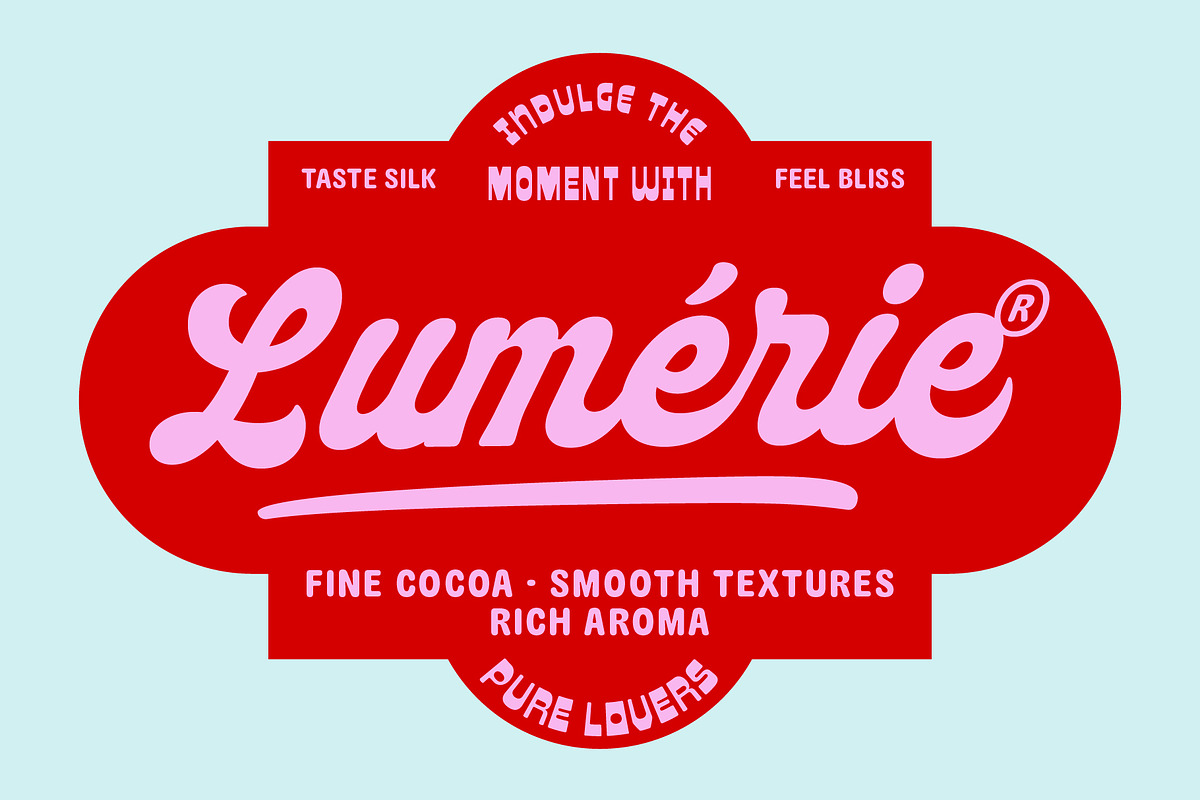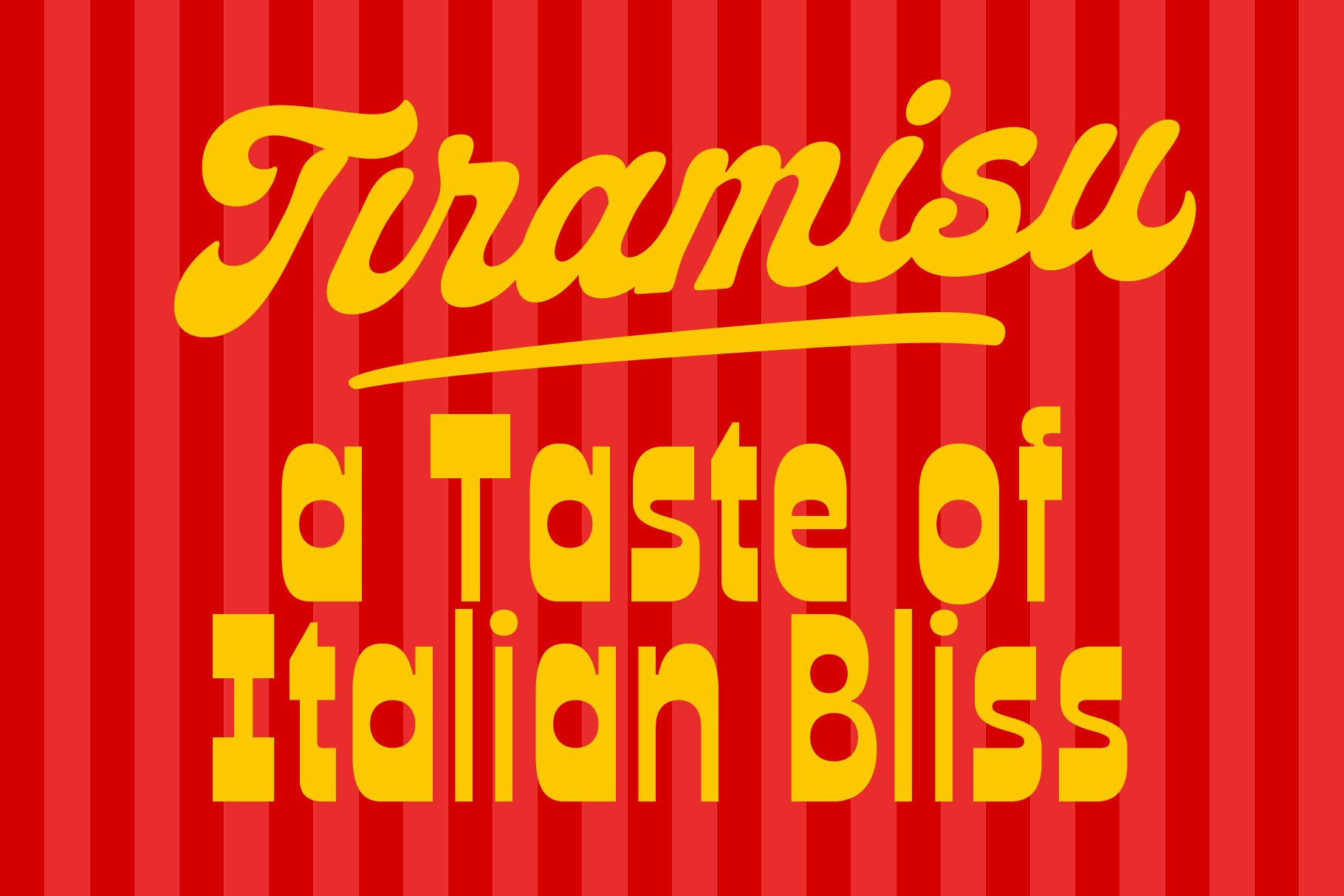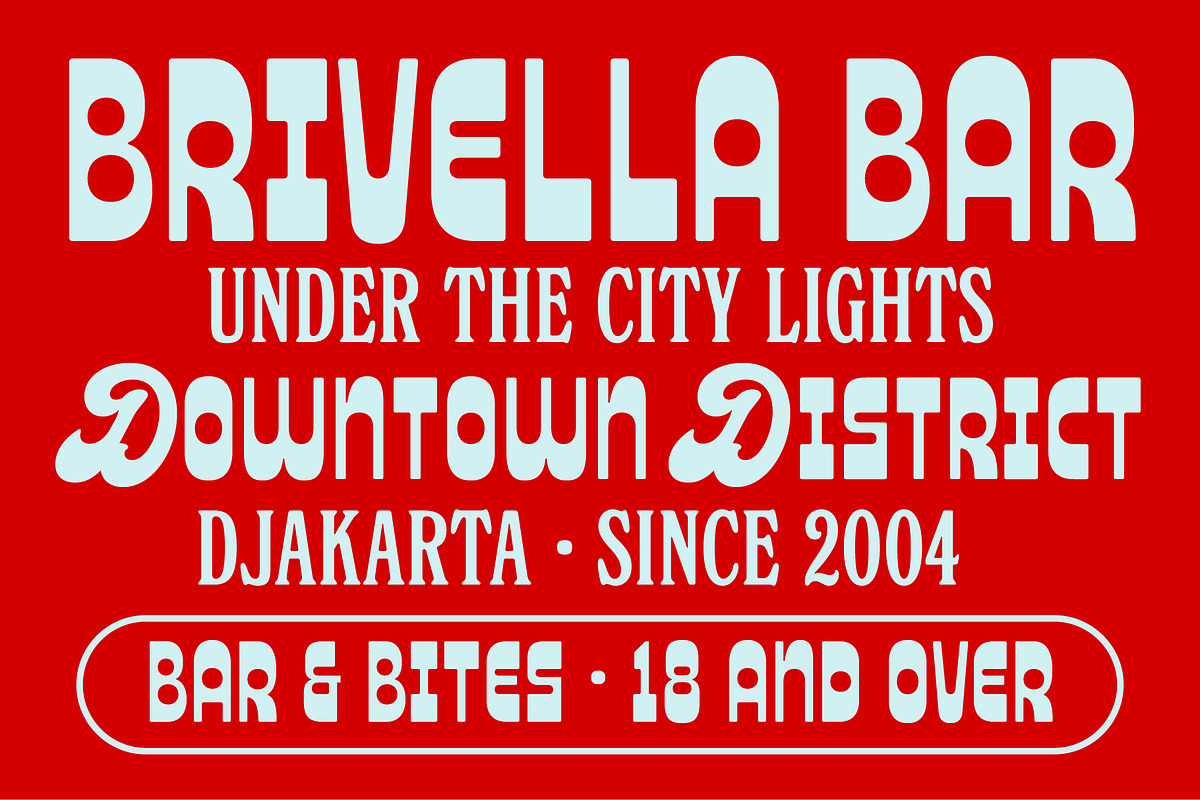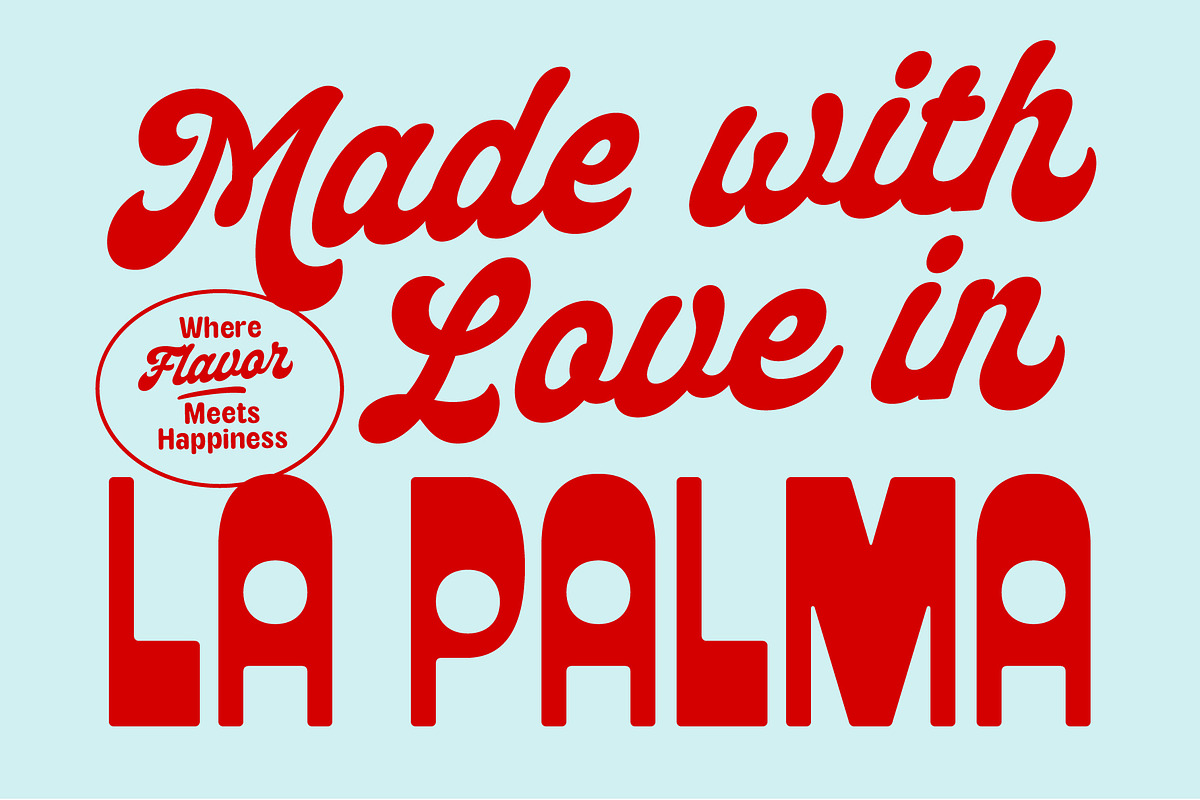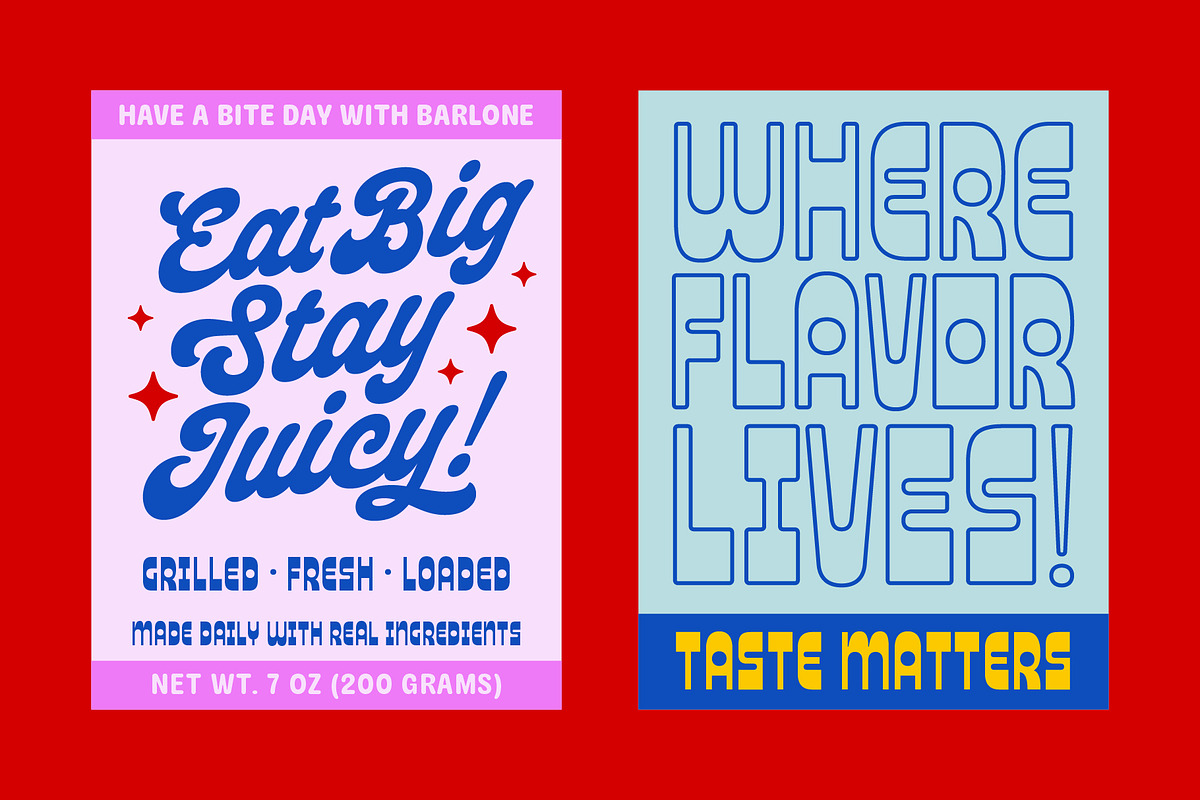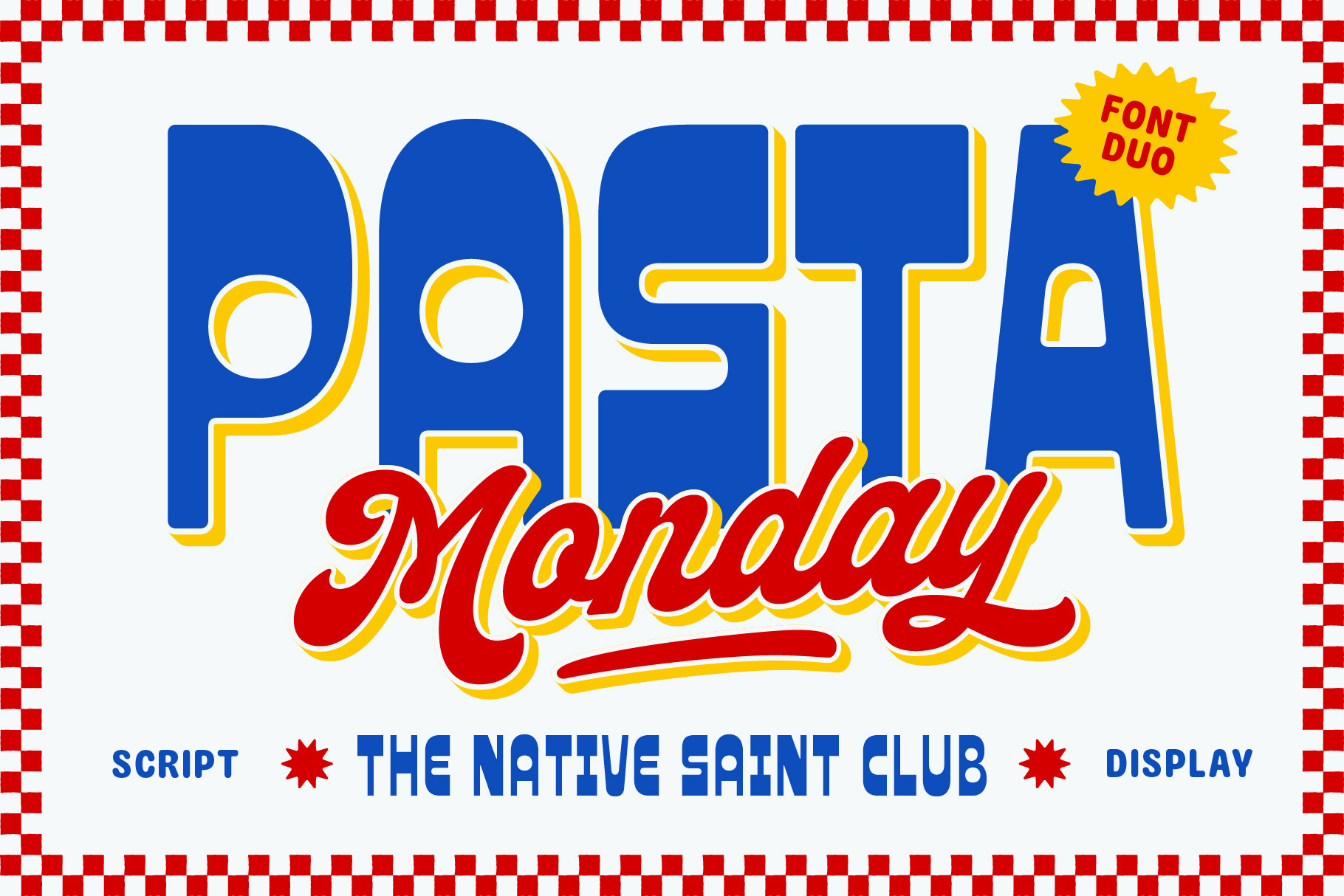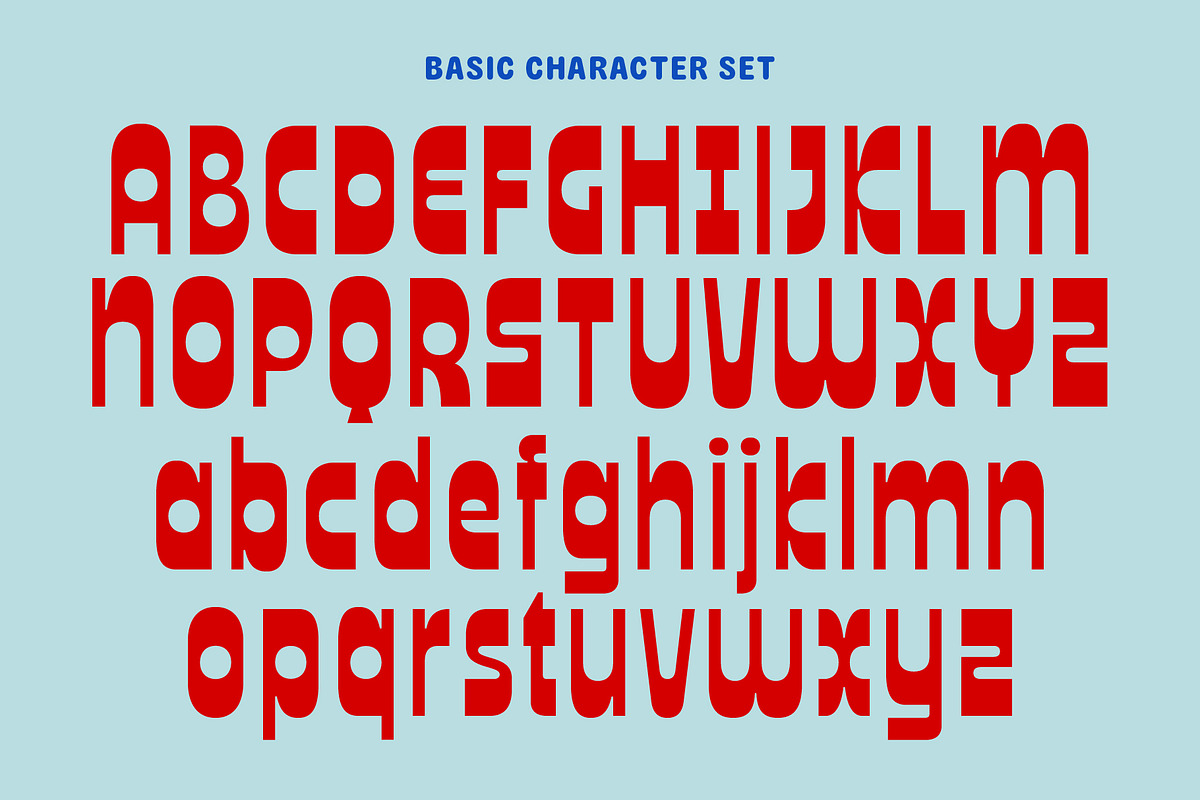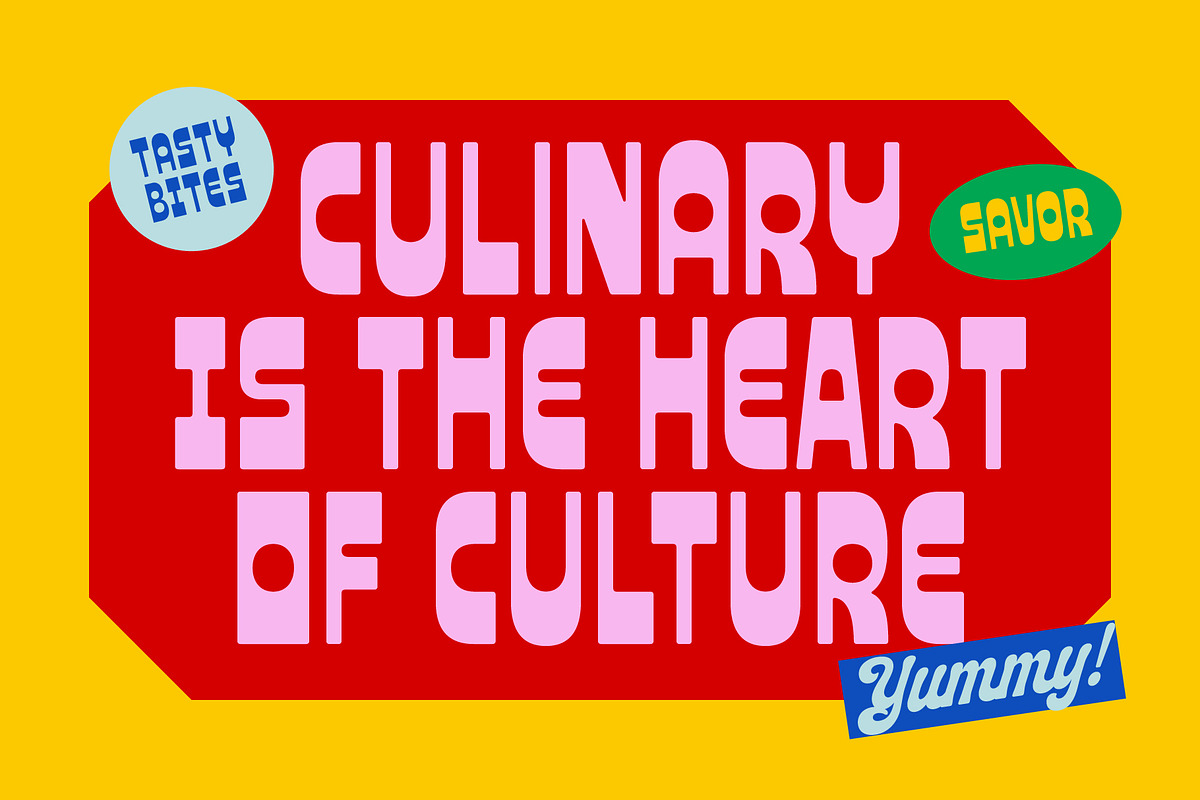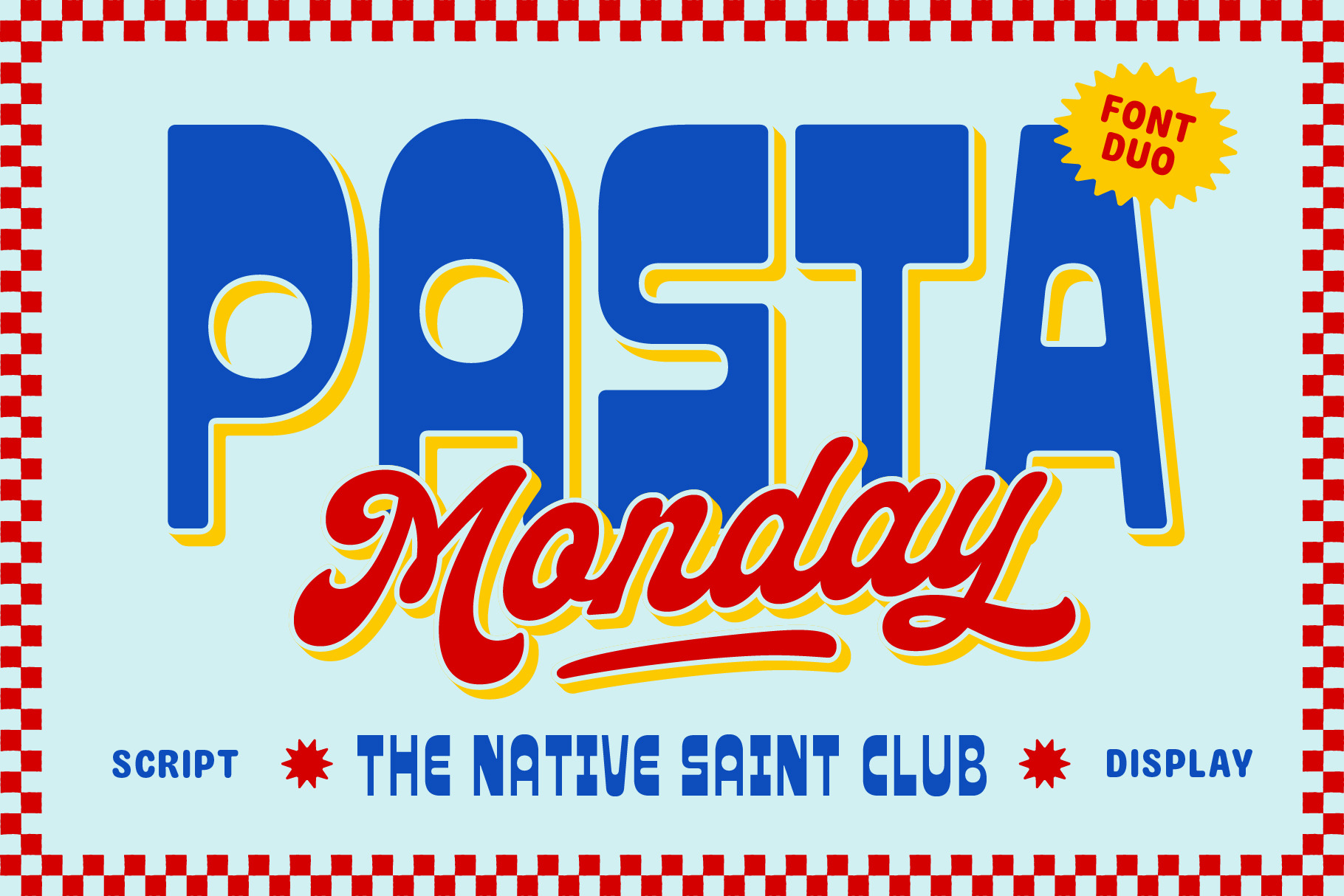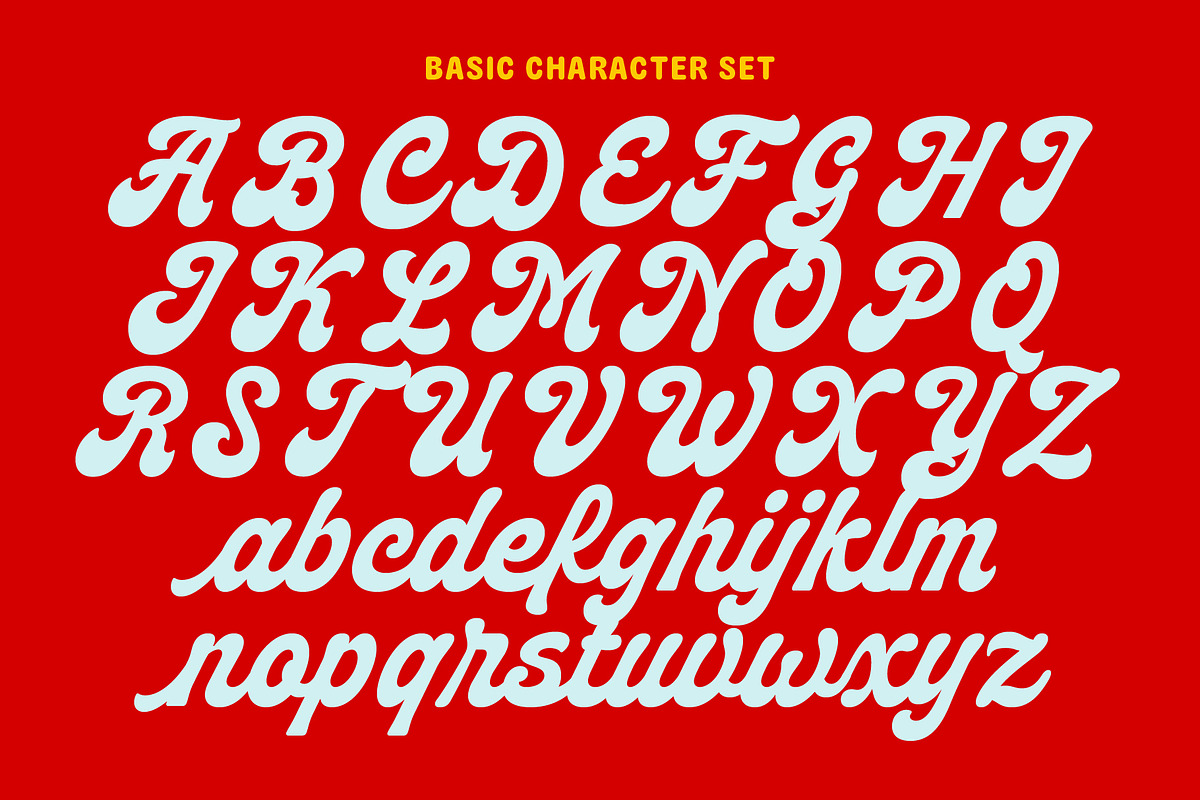
Pasta Monday - Font Duo
TNSC Pasta Monday is a playful FONT DUO combining a bold retro display and an expressive script inspired by vintage food signage and classic packaging. Perfect for branding, packaging, menus, posters, logos, and social media designs.